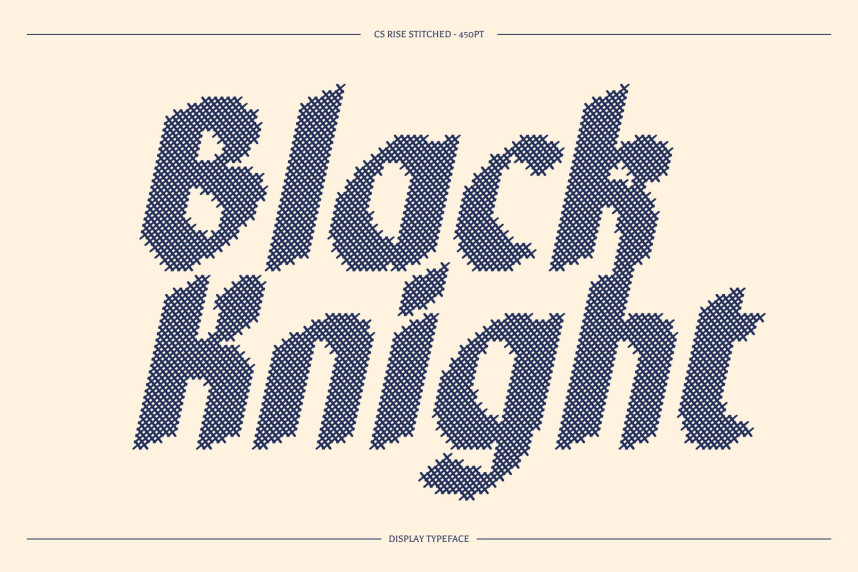
CS Rise Stitched Font
CS Rise Stitched Font – Blackletter Font
Gothic Heritage with a Modern Edge
This is a bold blackletter display font that reimagines traditional gothic elegance with softer, rounded edges and a handcrafted stitched texture. This fusion creates a distinctive balance between historical drama and contemporary friendliness, making the font feel powerful yet approachable.